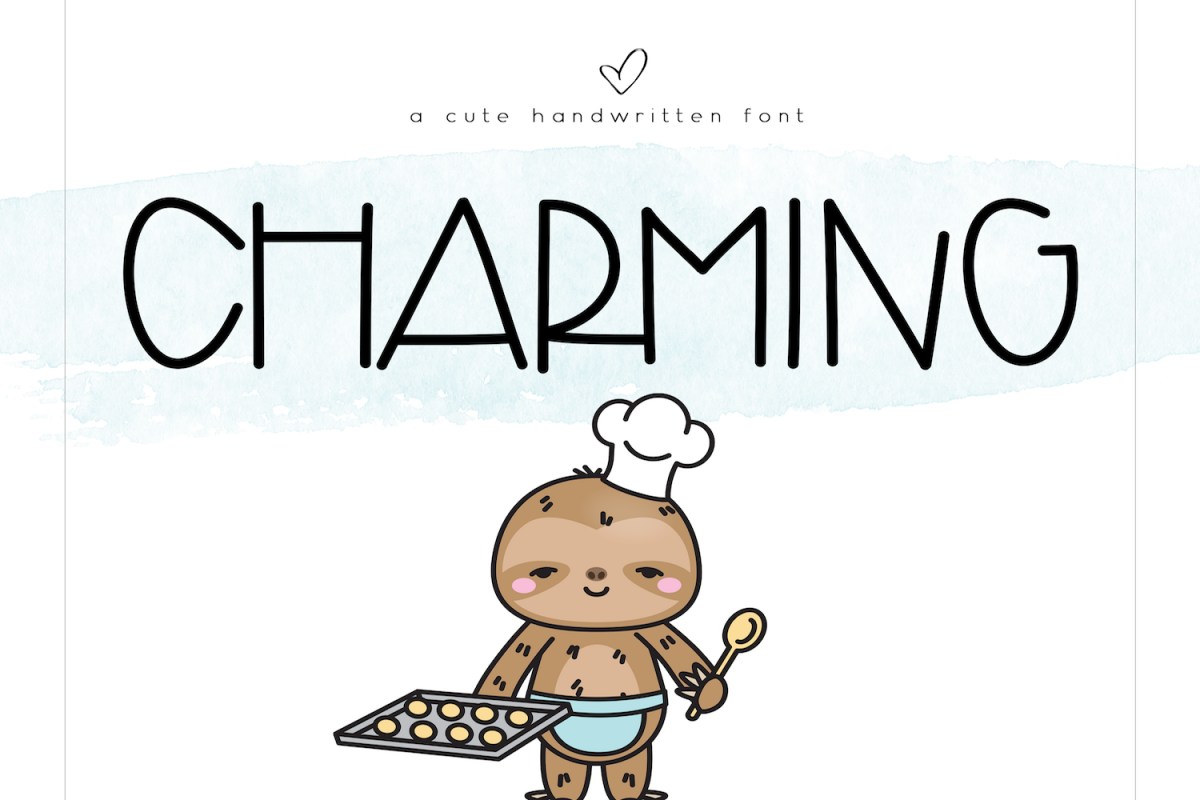
Charming - A Cute Handwritten Font
Charming
Charming is a cute handwritten font.  It is an ALL CAPS font.
This font is perfect for quotes, headings, designs, logos, invitations and more!
This font does include accent characters.